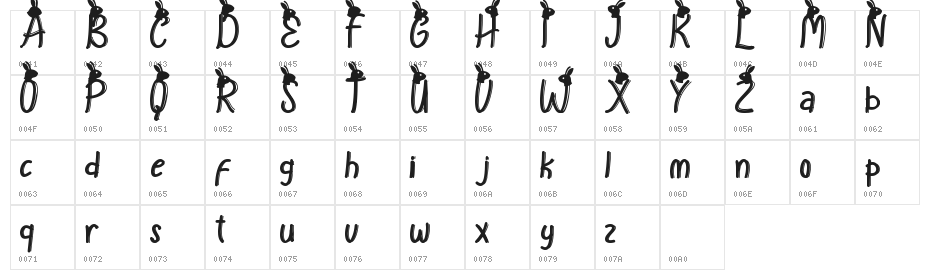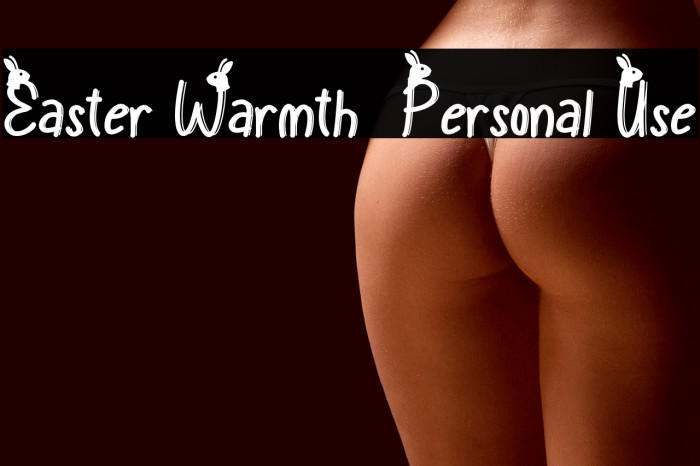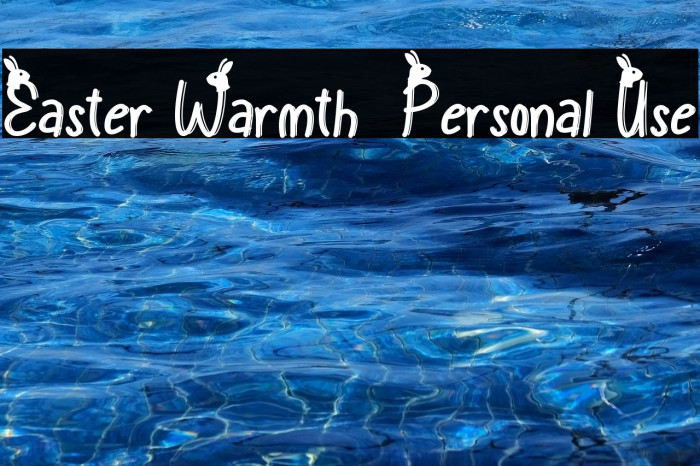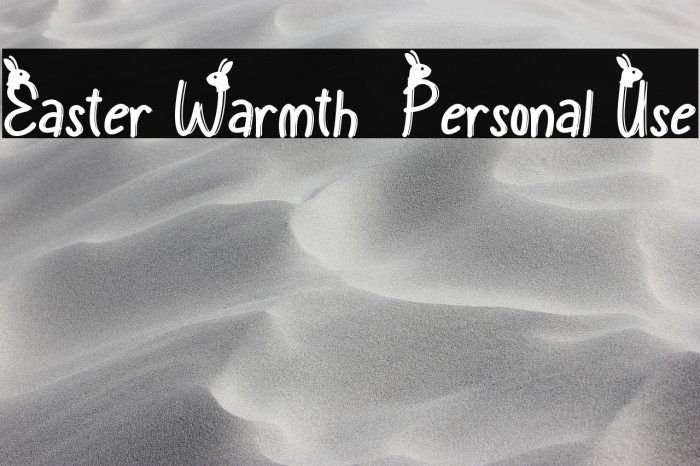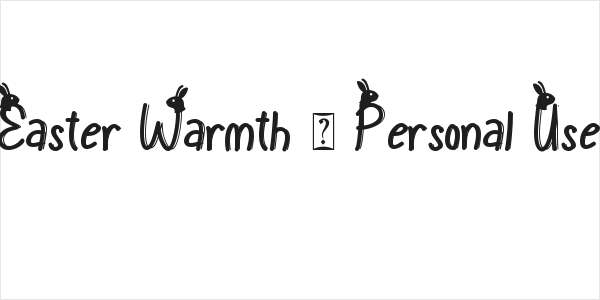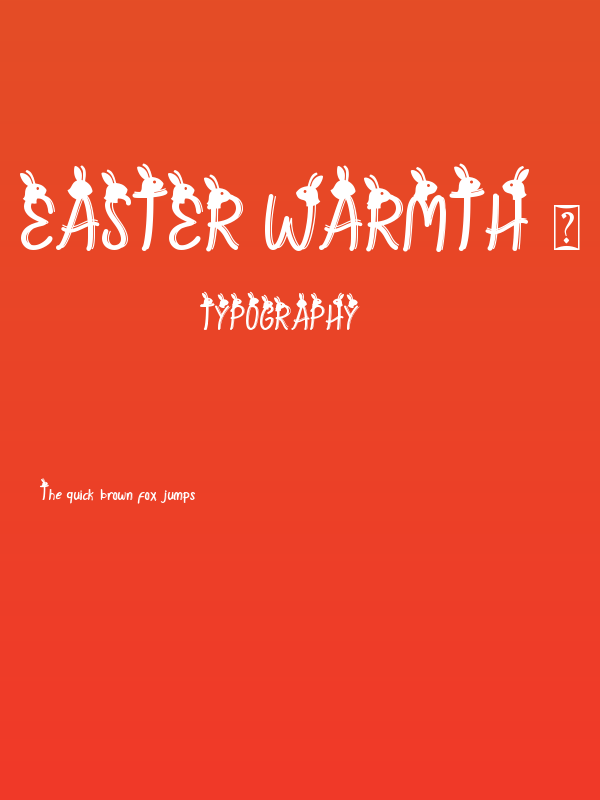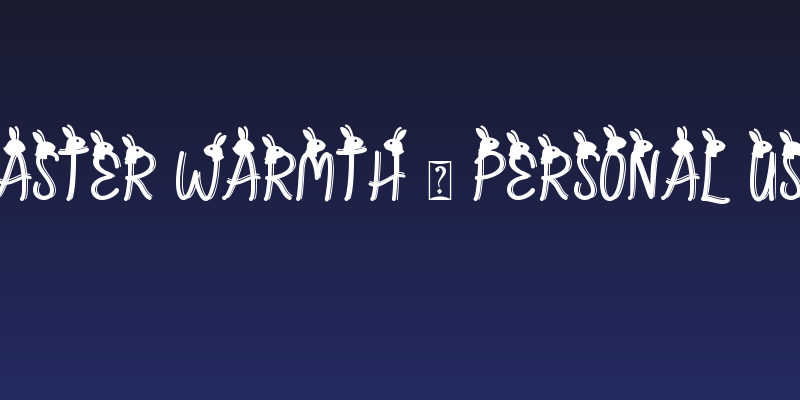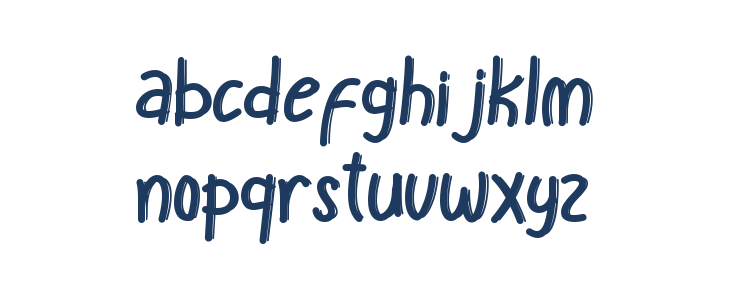
Easter Warmth - Personal Use Font
Easter Warmth - Personal Use Description
This playful and whimsical font features a unique design where each letter is accompanied by a stylized rabbit silhouette, adding a fun and festive touch. The characters are bold and slightly irregular, giving them a hand-drawn appearance. The uppercase and lowercase letters maintain a consistent style, with rounded edges and a casual flow. The font's distinctive character is perfect for holiday-themed projects, especially those related to Easter or springtime celebrations. Its decorative nature makes it stand out, while the bold strokes ensure readability.
| Proposed Projects | Ideal for Easter cards, children's book covers, festive banners, and playful branding. |